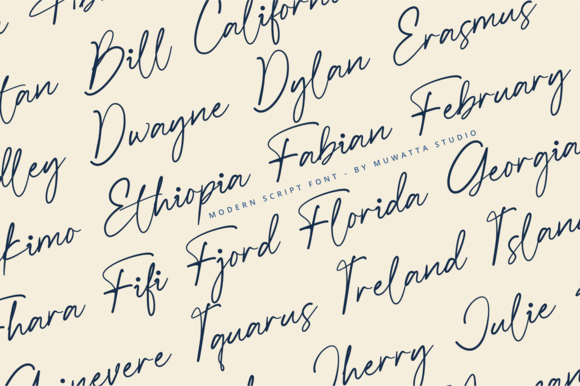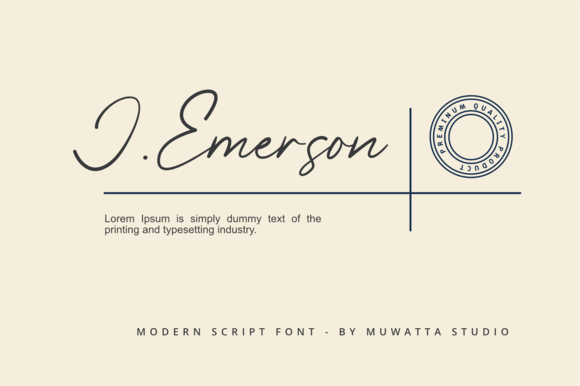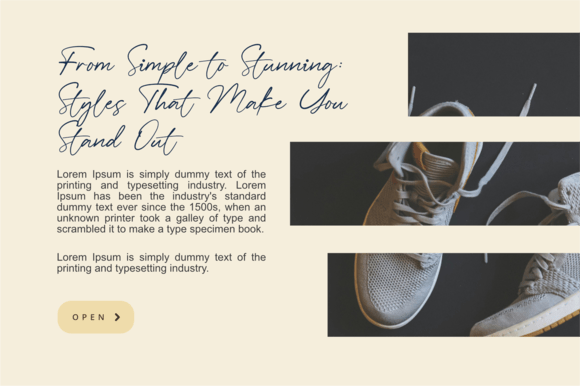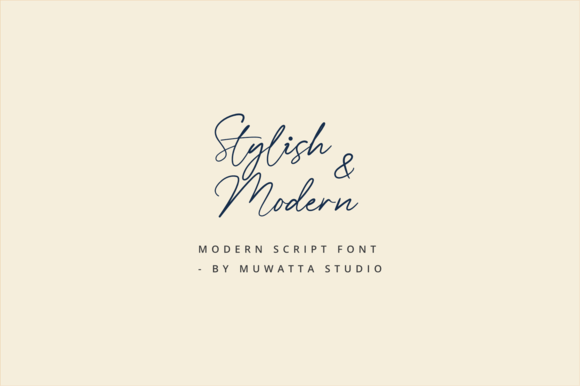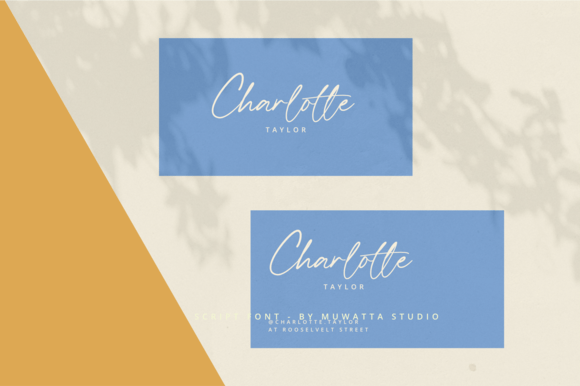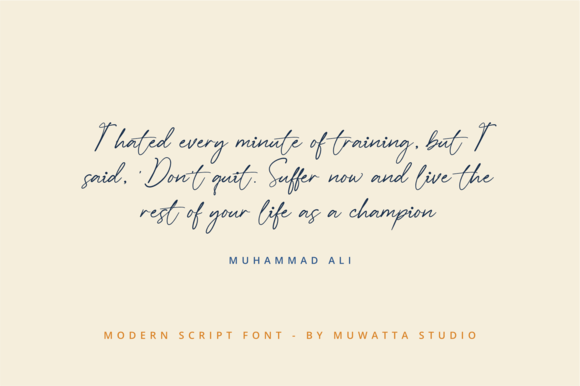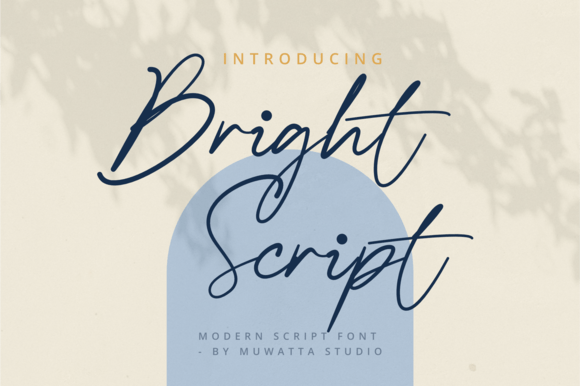
Introducing Bright Script Font: Elevate Your Designs with Elegance and Personality
In the world of digital design, fonts play a crucial role in conveying messages, expressing emotions, and establishing brand identities. For designers, content creators, and brand owners seeking to infuse a warm, professional, and modern touch into their visual works, Bright Script Font emerges as an exceptional choice. This handwritten script font is meticulously crafted to offer an elegant, personal, and contemporary feel, making it perfect for a wide array of design applications.
The Essence of Bright Script Font
Bright Script is not just another font; it’s a design element that brings a unique blend of sophistication and approachability. Its smooth curves and natural character sets ensure that every piece of text looks like it was penned by hand, yet remains effortlessly readable and visually balanced. This delicate balance between elegance and readability is what sets Bright Script apart, making it an invaluable asset for anyone looking to enhance their designs with a personal touch.
One of the standout features of Bright Script Font is its versatility. Whether you’re working on a logo, crafting an invitation, developing a brand’s identity, designing packaging, creating motivational quotes, or producing engaging social media content, Bright Script proves to be an adaptable and reliable choice. Its application spans various platforms and mediums, ensuring consistency and quality across all your visual projects.
Designed with Precision and Passion
Each letter in Bright Script is designed with precision and passion, embodying the essence of real handwriting while ensuring clarity and legibility. This meticulous attention to detail allows designers and content creators to produce work that stands out for its warmth, elegance, and professionalism. Whether you’re aiming to create a lasting impression or simply looking to add a personal touch to your designs, Bright Script Font facilitates the creation of visually stunning and emotionally resonant content.
Why Choose Bright Script Font?
- Elegant and Modern Feel: Bright Script brings a contemporary and sophisticated vibe to your designs, setting them apart in a crowded digital landscape.
- Handwritten with a Personal Touch: Its handwritten nature adds a personal and emotional layer to your content, making it more engaging and relatable.
- Versatile Application: From logos and branding to social media posts and invitations, Bright Script’s versatility knows no bounds.
- Readability and Balance: Despite its elegant and cursive nature, Bright Script remains highly readable and visually balanced, making it suitable for a wide range of applications.
Implementing Bright Script in Your Designs
| Font Name | Bright Script Font |
| Author | Muwatta Studio |
Bright Script Font is more than just a typeface; it’s a tool for creative expression and brand storytelling. Its elegant, personal, and modern characteristics make it an ideal choice for designers and content creators looking to elevate their visual works. By incorporating Bright Script into your design arsenal, you’re not just choosing a font; you’re embracing a style that speaks of warmth, professionalism, and creativity. Unlock the full potential of your designs with Bright Script Font and discover a world of limitless creative possibilities.